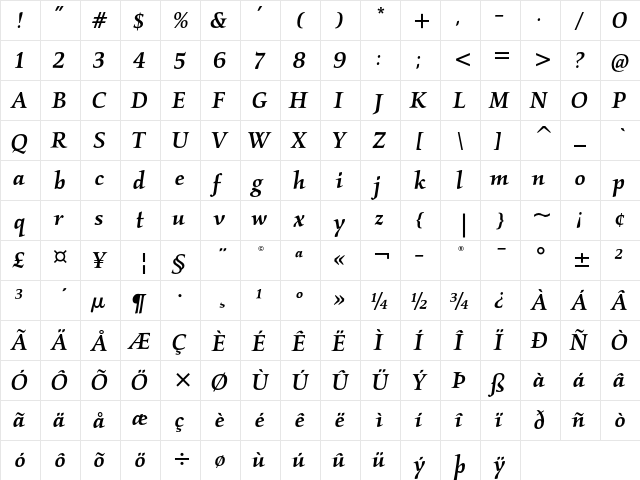
ITC Kallos LT Std Medium Italic
| Foundry | Linotype GmbH |
| Designer | Phill Grimshaw |
Design Context for ITC Kallos LT Std Typeface
ITC Kallos LT Std is a composed and adaptable typeface that performs quietly and consistently across a wide range of design contexts. The slanted form adds forward momentum and visual energy. Its slender proportions lend an understated elegance to any composition.
Pro Tip: Try ITC Kallos LT Std for annotation and caption copy alongside an upright companion — the contrast in angle creates a dynamic but ordered typographic system.